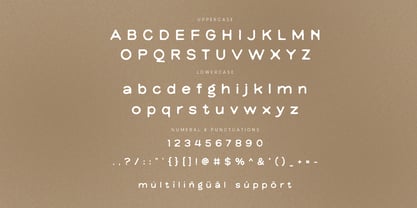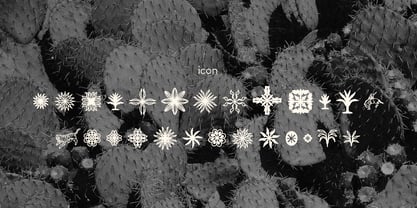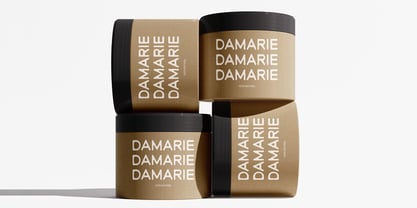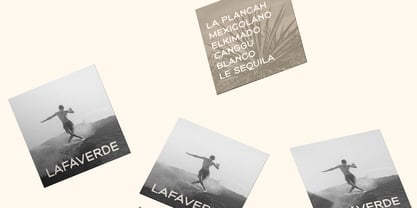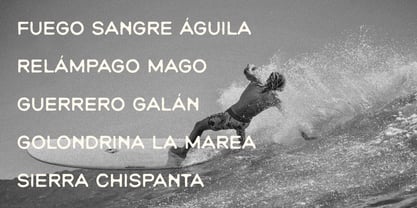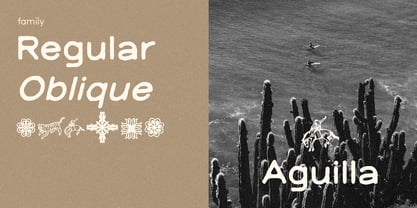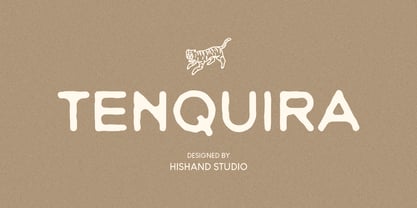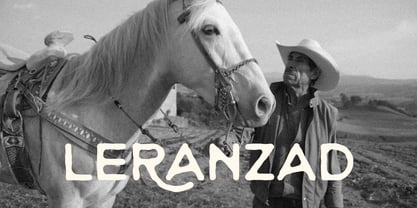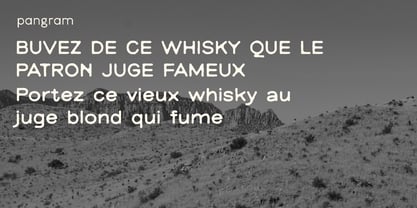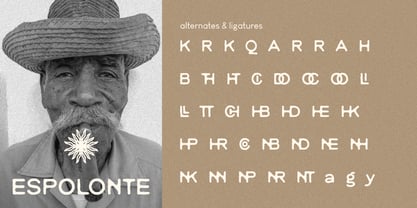
Tenquira
by Hishand Studio
The Tenquira Font Family was designed by Putu Dody Permana and published by Hishand Studio. Tenquira contains 3 styles and family package options. More about this family
Tenquira is a hand-drawn sans serif with warmth in every curve. Its letterforms feel intentional rather than perfected, with subtle imperfections in stroke weight and shape giving it the texture of real handwriting, while careful spacing and rhythm keep it clean enough for serious use. This is a typeface for brands that want to feel human, not manufactured.
Each letter carries small variations that mimic natural inconsistency, slightly uneven terminals, organic curves, a touch of looseness in the joins. The result is a font that reads as authentic and approachable, with an aesthetic quality that feels effortless rather than overworked.
Tenquira fits beautifully on packaging, branding, editorial layouts, and any project that calls for softness without losing structure. It's versatile across display and text use, equally at home in a logo lockup or a paragraph of body copy. Complete with :
- ligatures
- alternates
- regular
- oblique
- icon
- kerning
- multilingual support